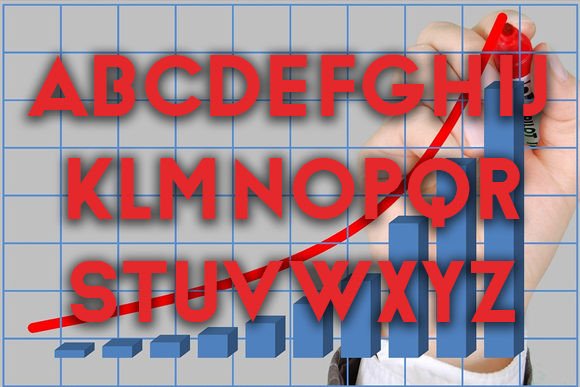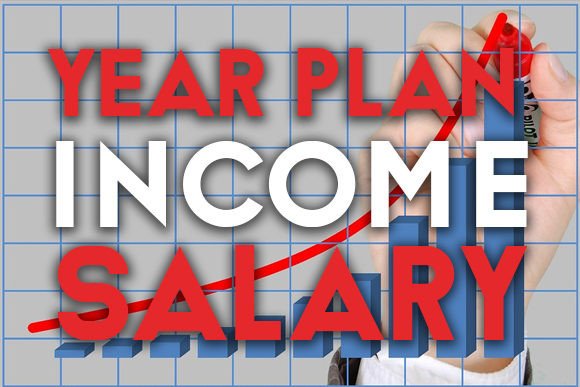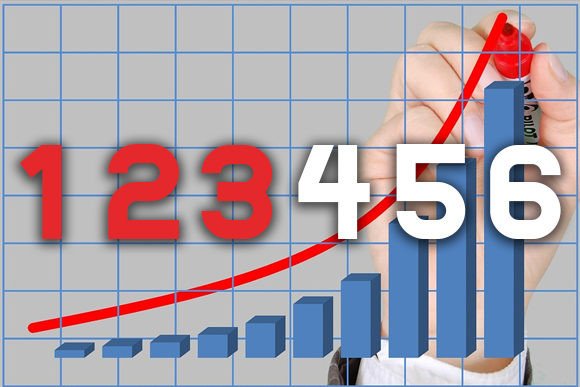
Introducing Graf Font: Elevate Your Designs with a Striking Bold Sans Serif
Are you tired of using the same old fonts in your designs? Look no further than Graf Font, a bold sans serif font that’s sure to take your creations to the next level. With its striking appearance and versatility, Graf Font is perfect for designers and crafters looking to add a touch of modernity to their work.
What is Graf Font?
Graf Font is a bold sans serif font that’s designed to make a statement. Its clean and modern lines make it perfect for use on a variety of materials, from shirts and postcards to banners and more. The font’s bold and eye-catching appearance ensures that your designs will stand out from the crowd, grabbing the attention of your audience and leaving a lasting impression.
Key Features of Graf Font
- Bold and Striking: Graf Font is a bold sans serif font that’s designed to make a statement. Its striking appearance ensures that your designs will stand out from the crowd.
- Versatile: Graf Font is perfect for use on a variety of materials, from shirts and postcards to banners and more.
- Modern and Clean: The font’s clean and modern lines make it perfect for designers and crafters looking to add a touch of modernity to their work.
- Easy to Read: Despite its bold appearance, Graf Font is easy to read, making it perfect for use on a variety of materials, from headlines to body text.
Uses for Graf Font
Graf Font is perfect for a variety of uses, including:
- T-Shirts and Apparel: Use Graf Font to create eye-catching designs for t-shirts, hoodies, and other apparel.
- Postcards and Flyers: Graf Font is perfect for use on postcards and flyers, adding a touch of modernity to your marketing materials.
- Banners and Signs: Use Graf Font to create bold and eye-catching banners and signs that are sure to grab attention.
- Branding and Packaging: Graf Font is perfect for use in branding and packaging, adding a touch of modernity to your brand’s image.
Tips for Using Graf Font
Here are a few tips for using Graf Font in your designs:
- Use it Boldly: Graf Font is a bold font, so don’t be afraid to use it boldly. Experiment with different sizes and colors to create eye-catching designs.
- Pair it with Other Fonts: Graf Font pairs well with other fonts, so don’t be afraid to experiment with different combinations. Try pairing it with a clean and modern serif font for a striking contrast.
- Use it Consistently: To create a cohesive look, use Graf Font consistently throughout your design. This will help to create a strong brand identity and make your designs more recognizable.
In conclusion, Graf Font is a striking bold sans serif font that’s perfect for designers and crafters looking to add a touch of modernity to their work. With its versatility, modern appearance, and ease of use, Graf Font is sure to take your designs to the next level. So why wait? Download Graf Font today and start creating eye-catching designs that are sure to grab attention.